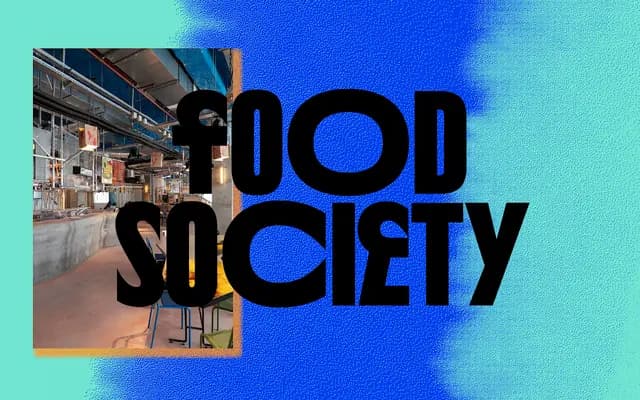
Food Society
Studio Triple · 2021
A custom display typeface created by Studio Triple in 2021, designed for editorial or branding use.
Produced as a custom commission in 2021, Food Society is a bespoke typeface from French studio Studio Triple. The sparse page content suggests a one-off design rather than a retail release, likely developed for a specific client or publication context. Little technical detail is publicly available beyond its classification as a new custom work.
Classified as display based on its custom typeface context and the minimal page content suggesting a bespoke, editorial-grade design not intended for extended text setting.